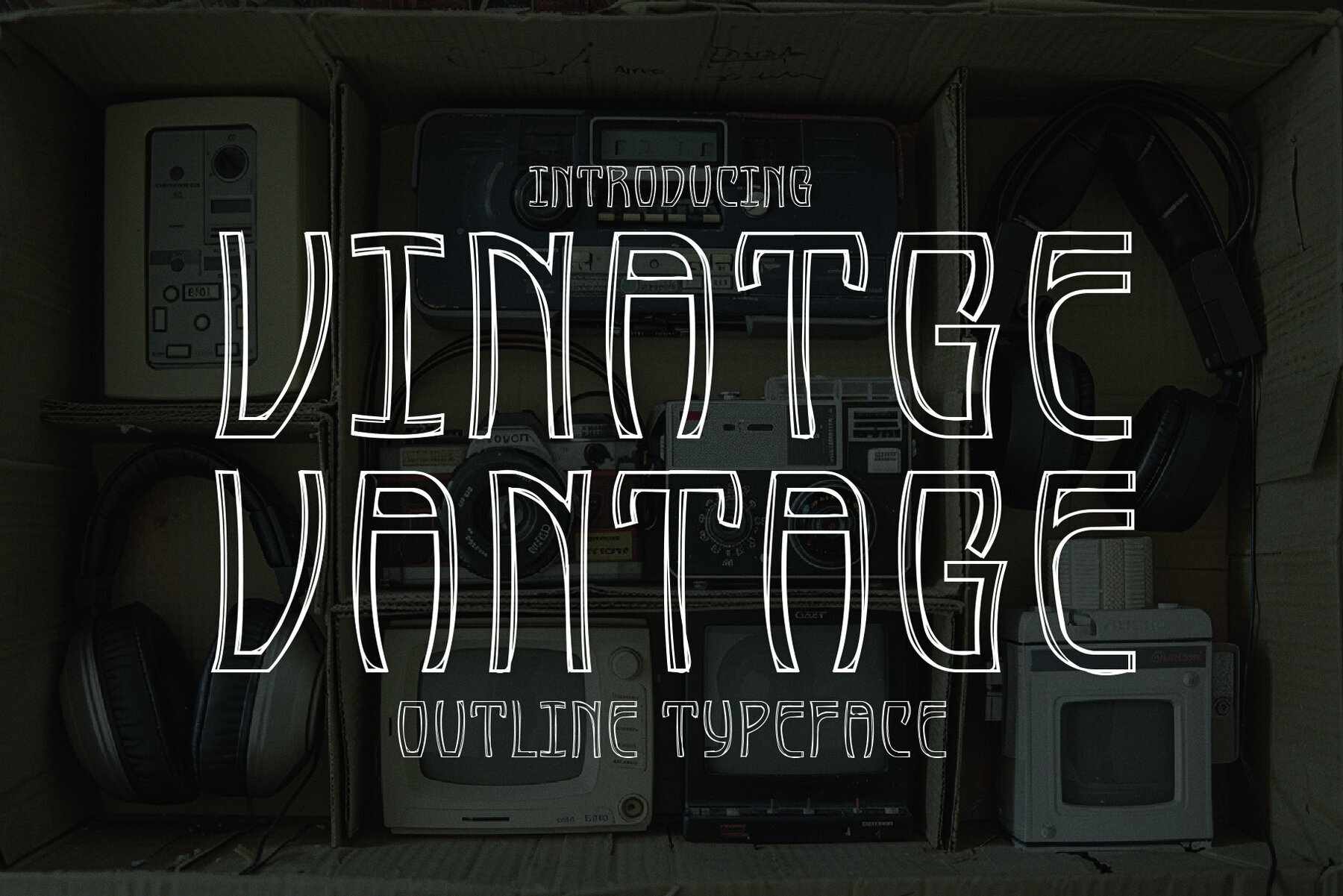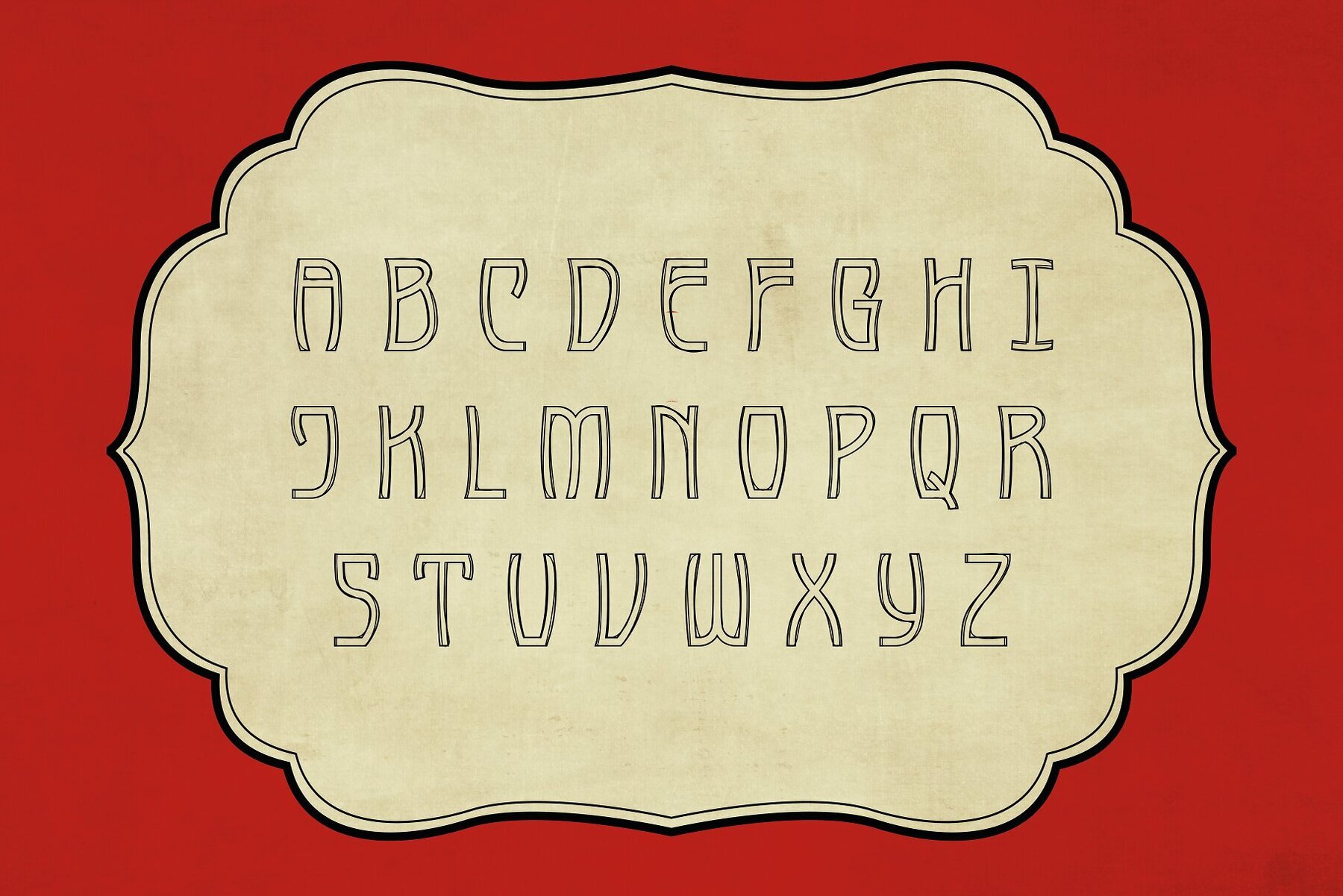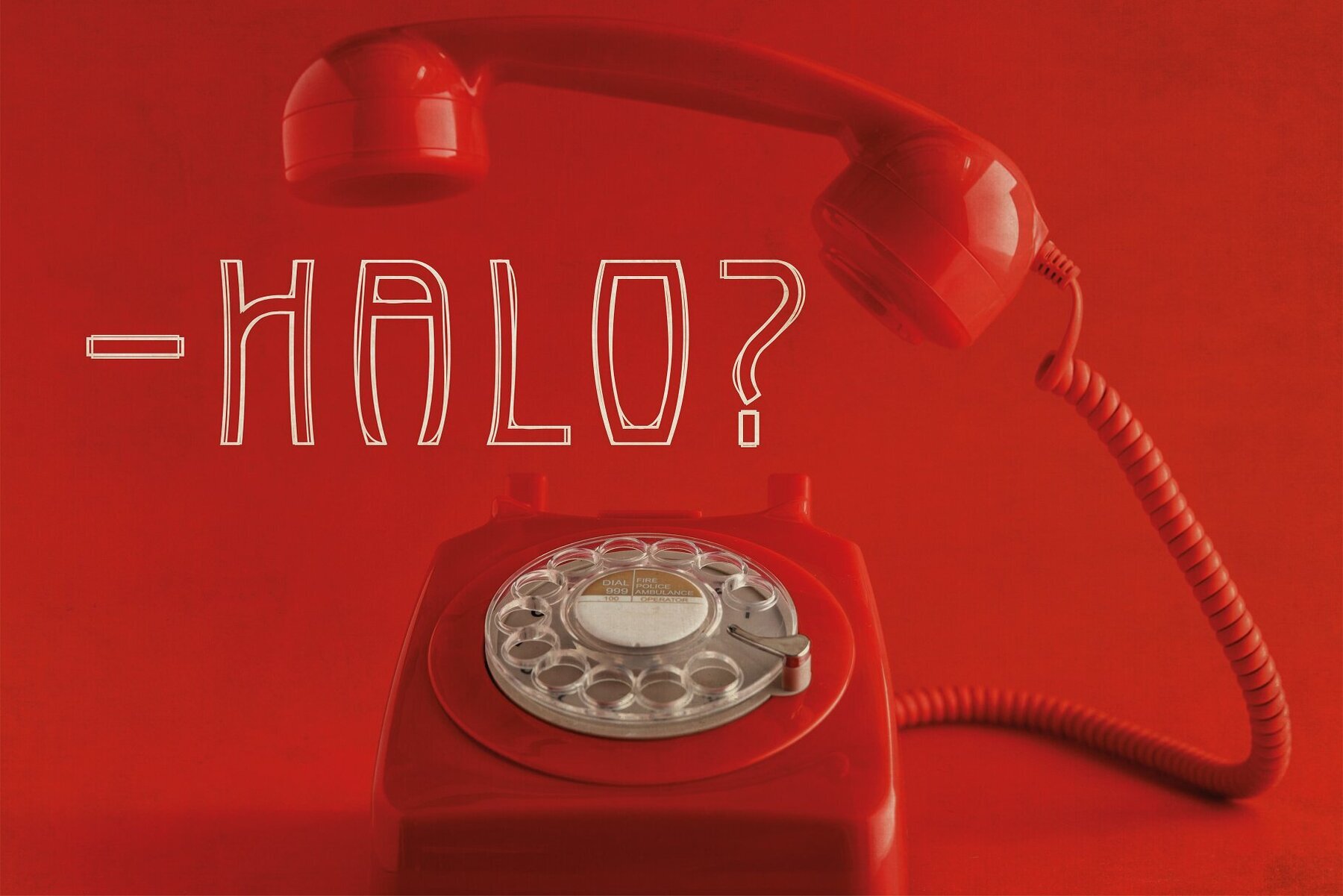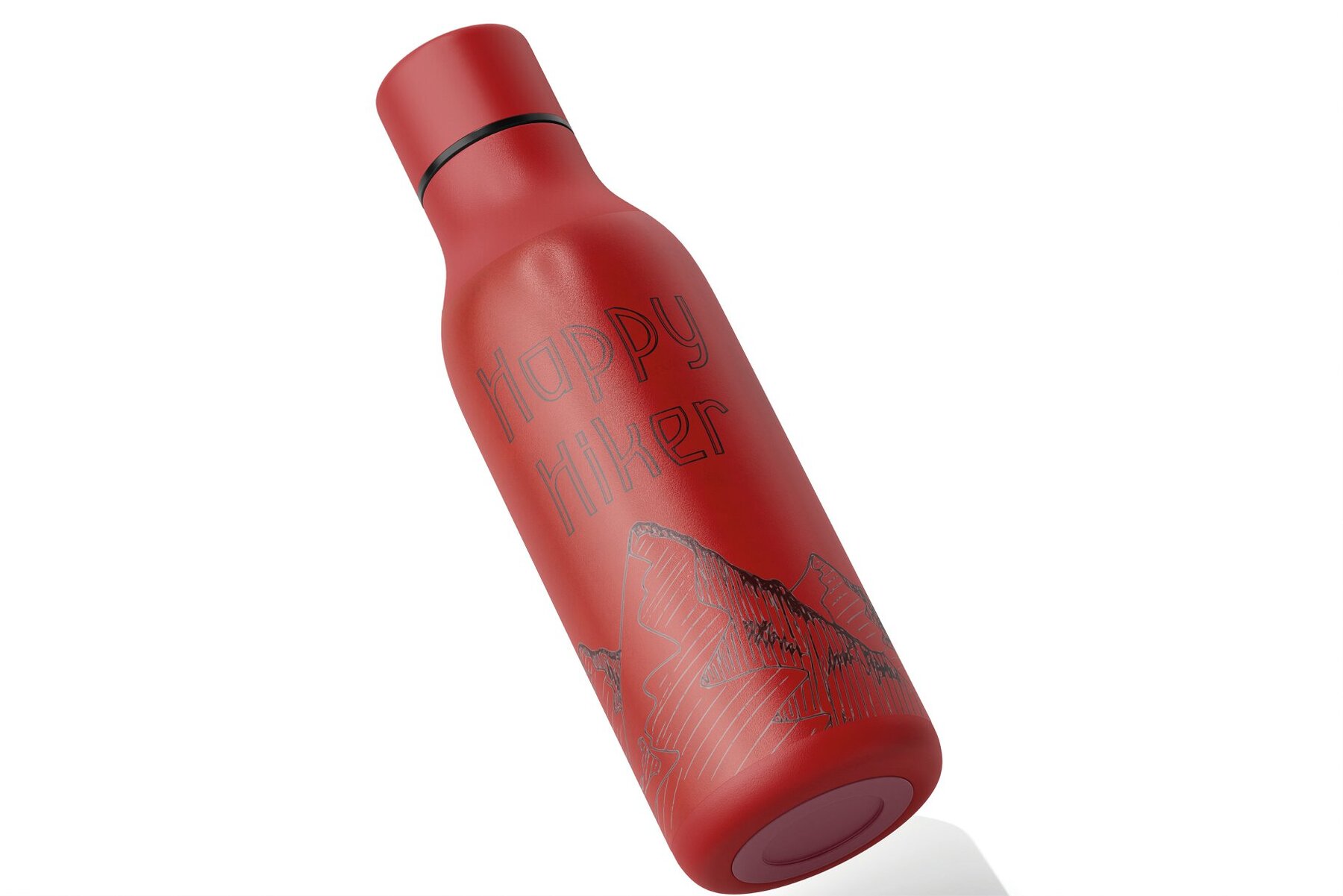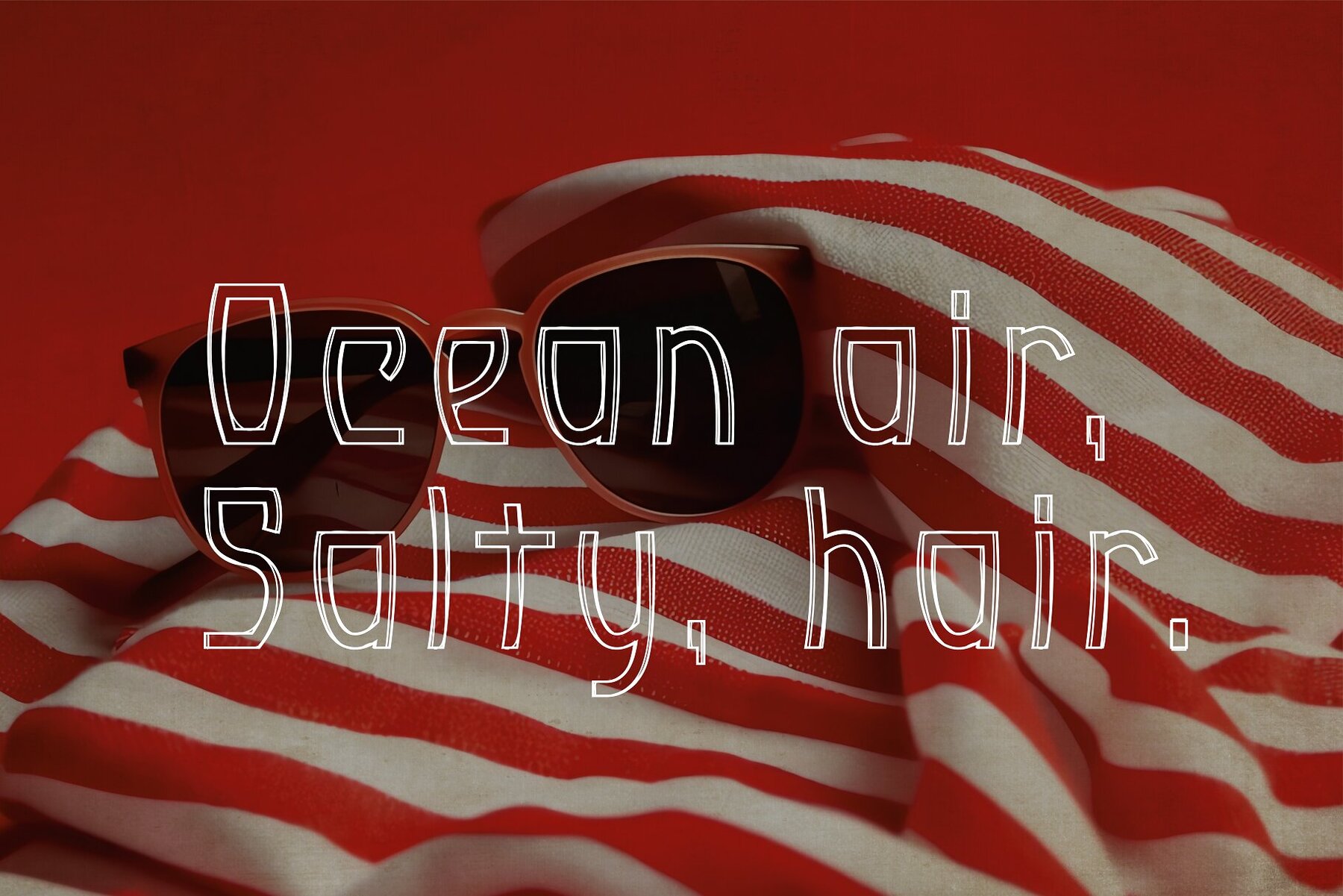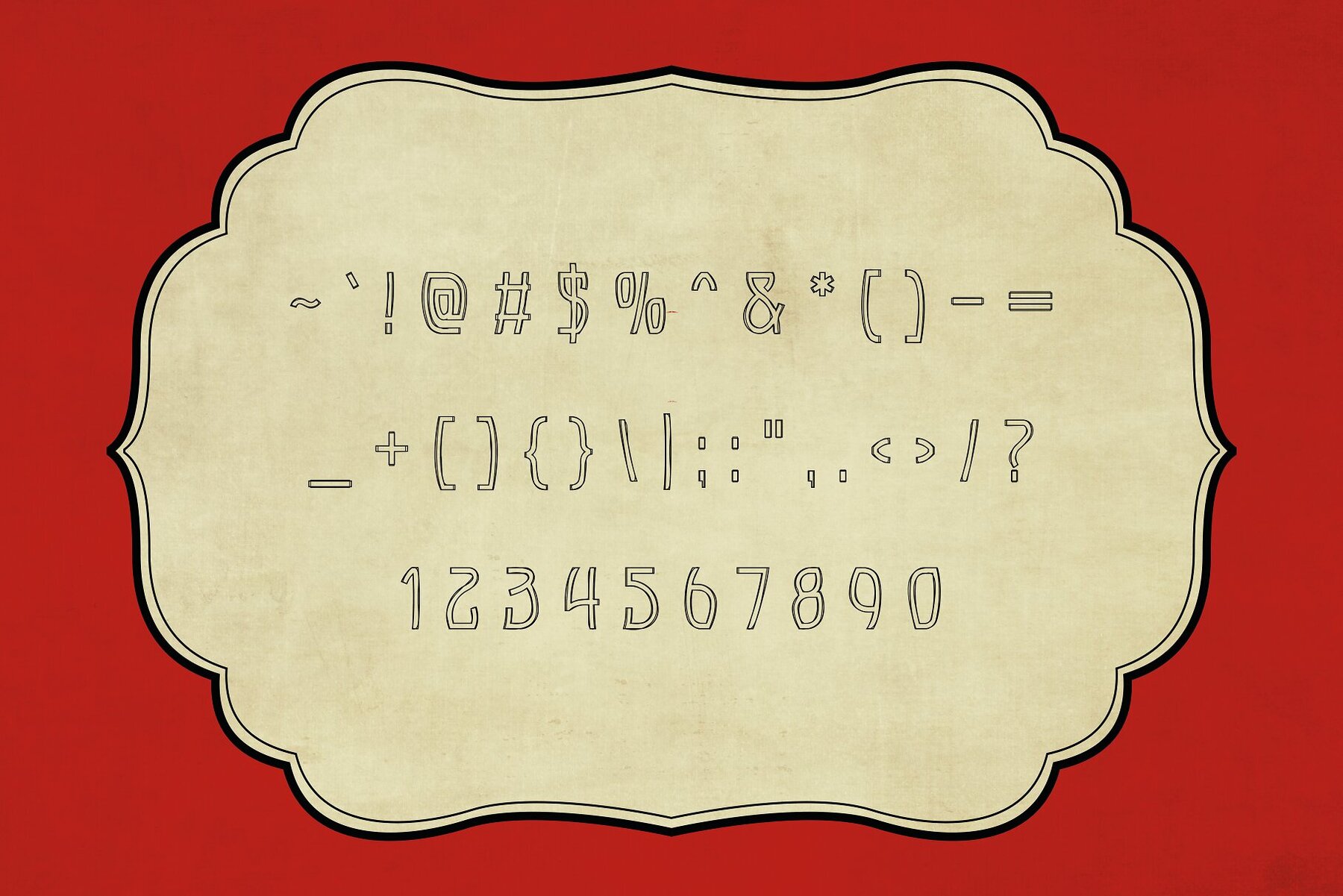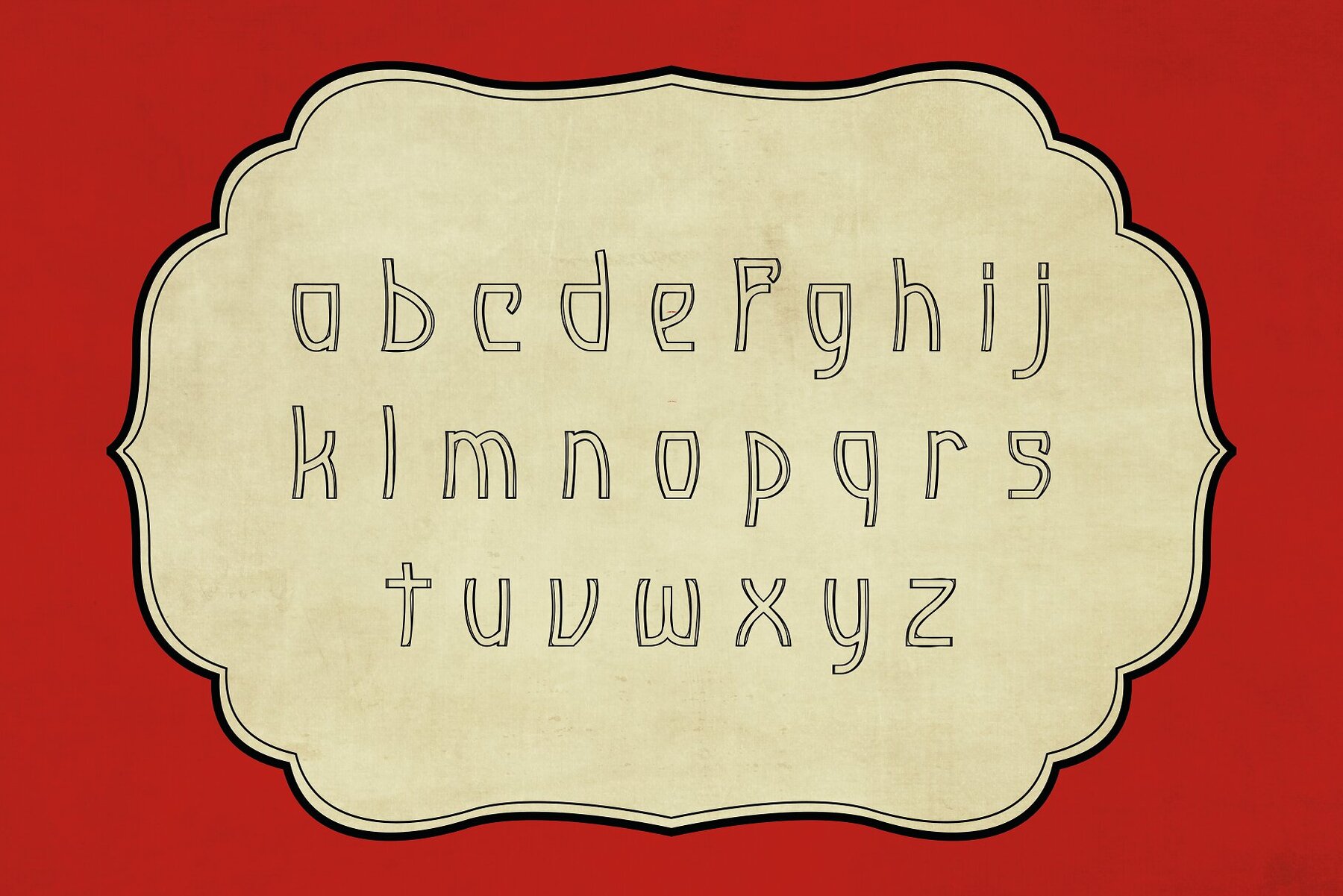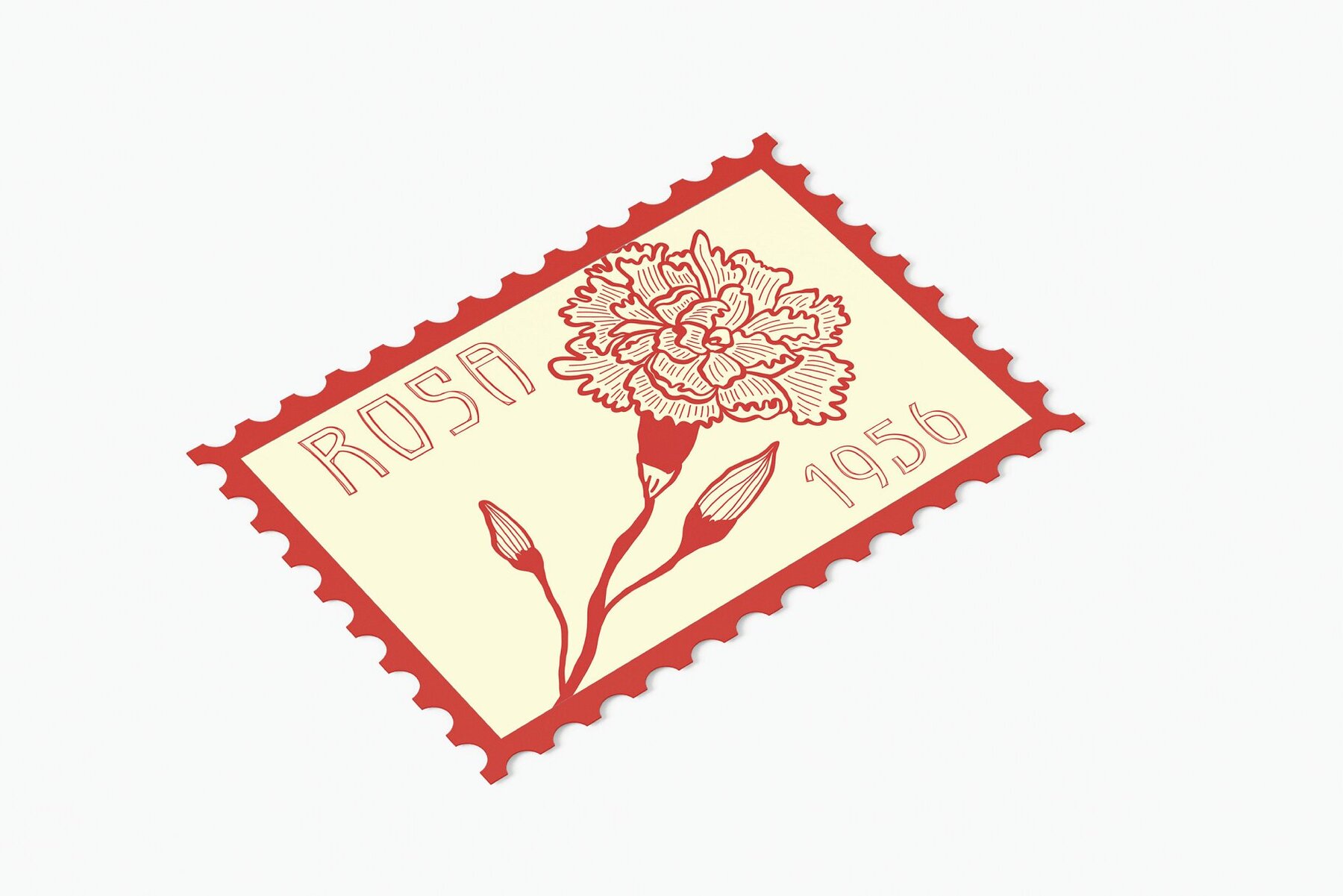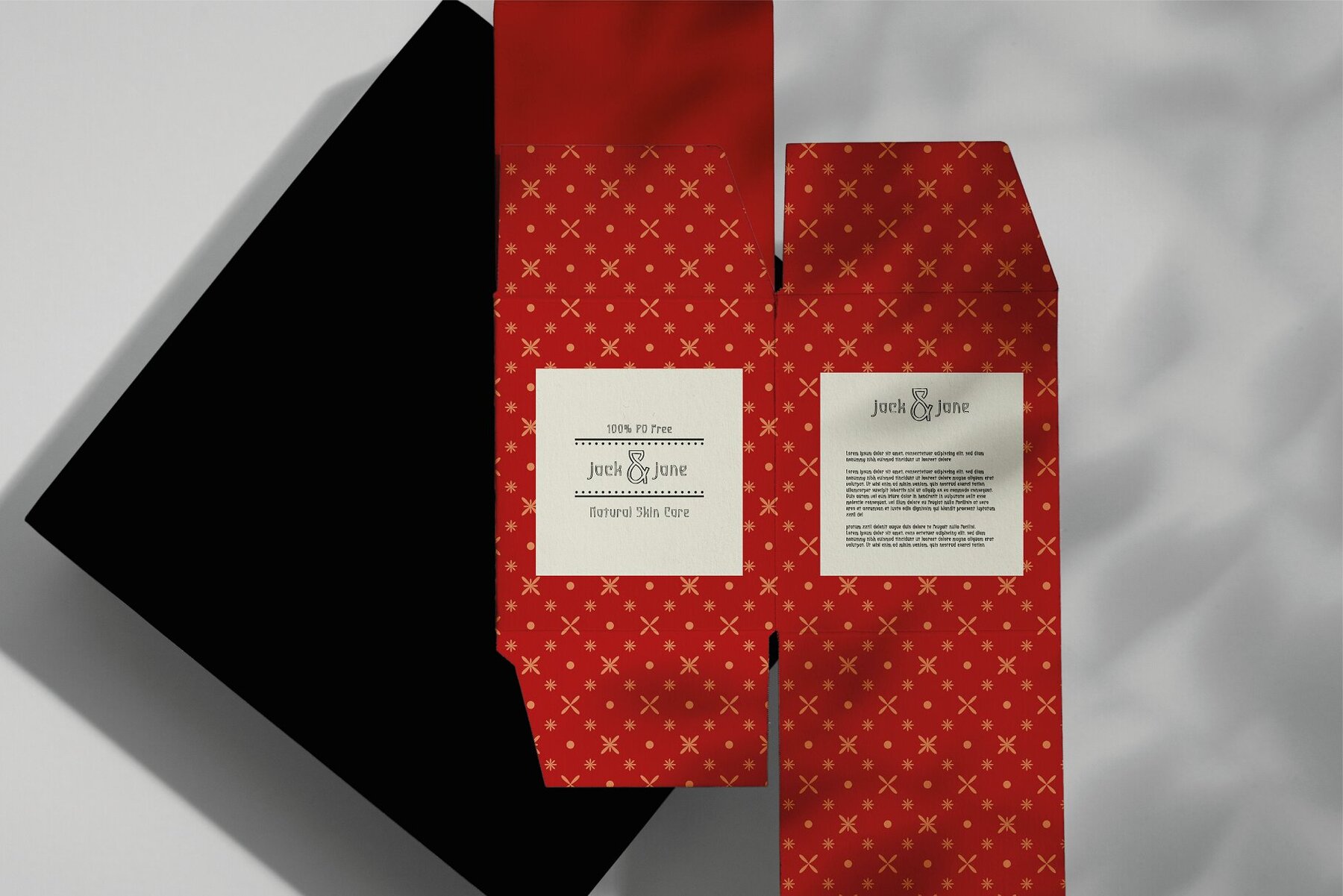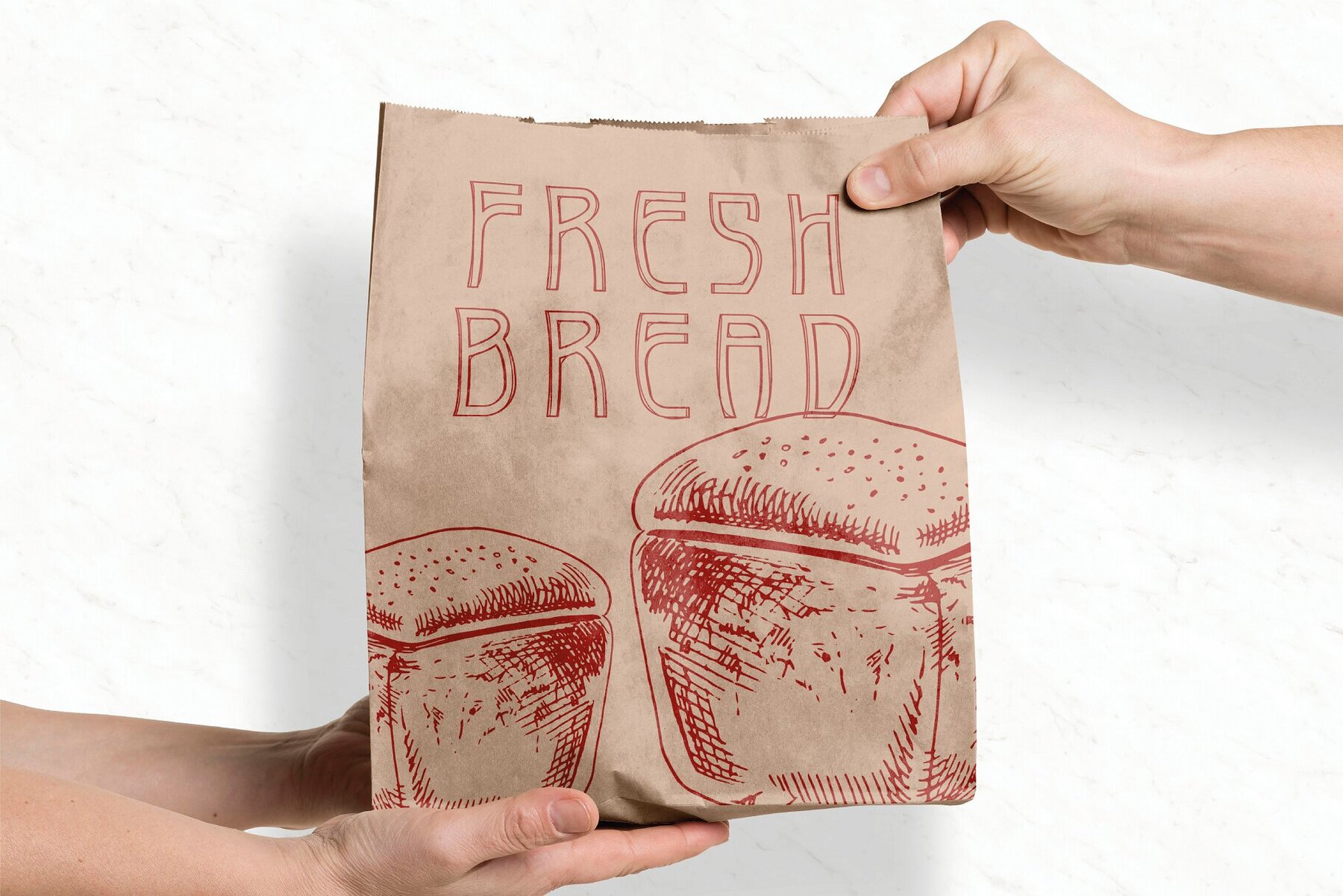
Vintage Vantage Font
Vintage Vantage
Vintage Vantage is a distinguished outline-themed typeface that seamlessly blends the elegance of the past with the sophistication of the present. Inspired by antique designs, this typeface offers a classic beauty that meets modern needs, making it ideal for adding a touch of refinement to various projects.
More than just a typeface, Vintage Vantage serves as a statement piece, evoking nostalgia while infusing your work with timeless elegance. Whether you aim to evoke a sense of history or add a layer of sophistication, this typeface is tailored to meet your needs, inspiring future creations with its elegant flair.